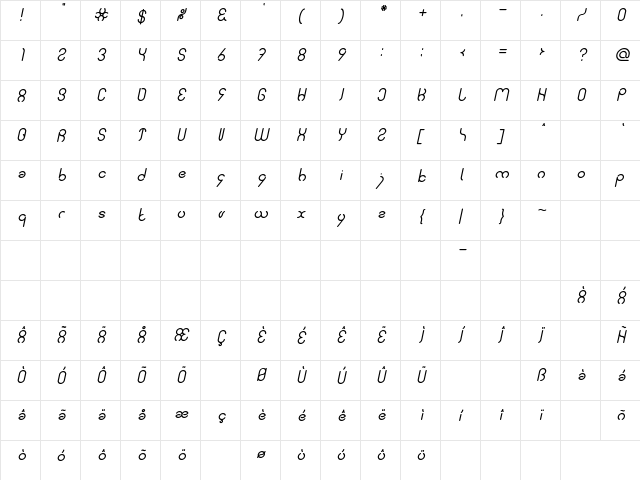
simple font Cursiva
Design Context for simple font Typeface
simple font brings a calligraphic fluidity to the page — its connecting strokes and expressive curves give it an unmistakably human quality.
Font Pairing: Combine simple font with a simple geometric sans for maximum contrast — the tension between flowing curves and clean structure is a classic typographic pairing.
Pro Tip: Use simple font for short runs of text — names, titles, or taglines. Extended body copy in script faces tires the eye quickly.